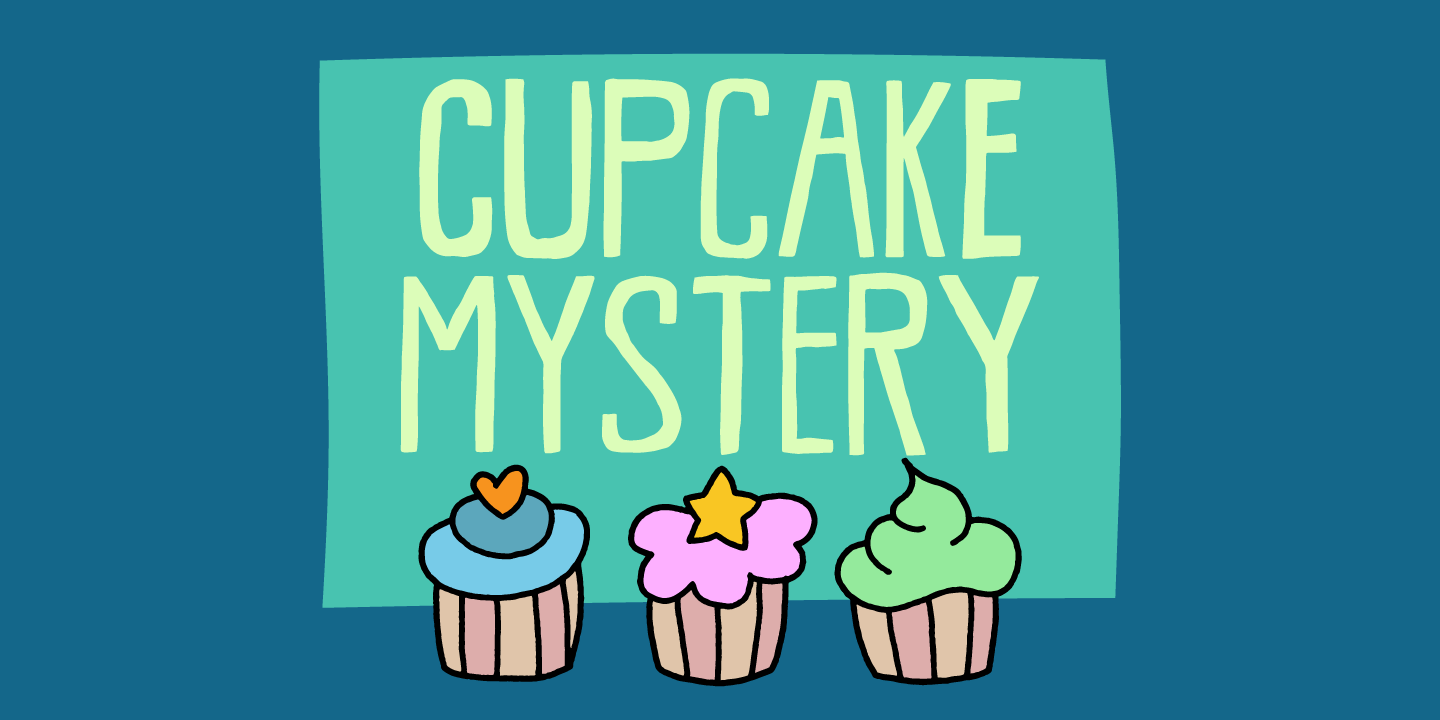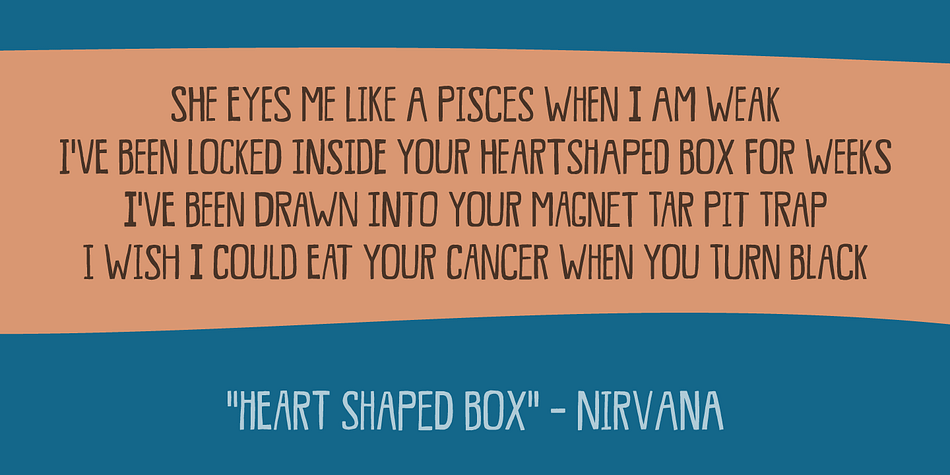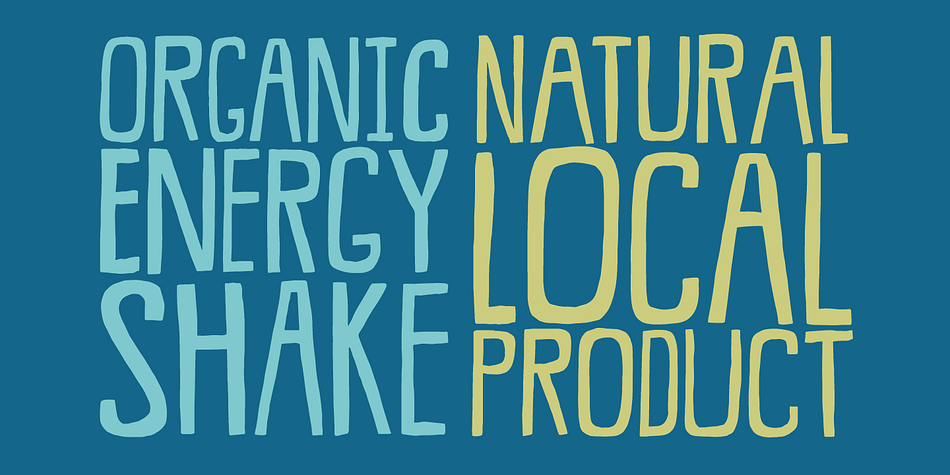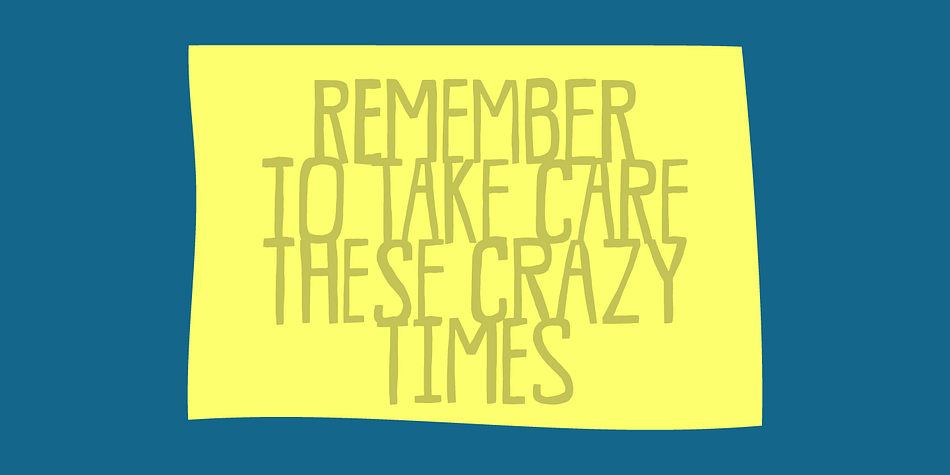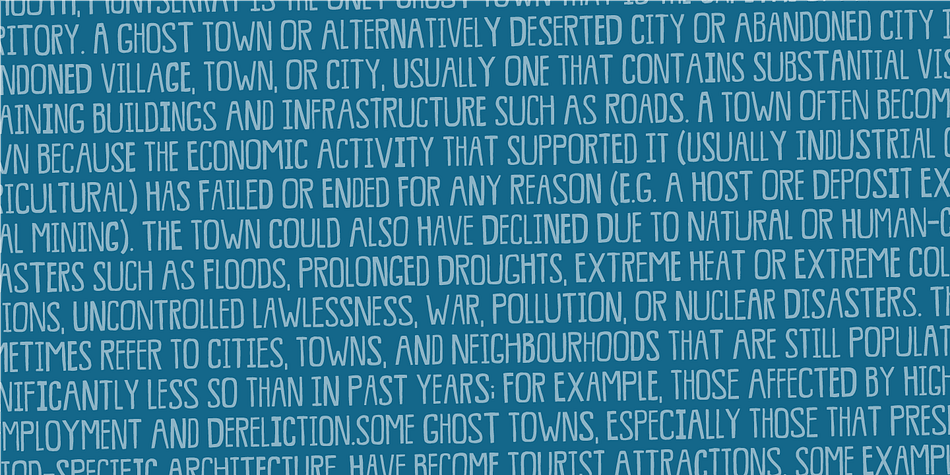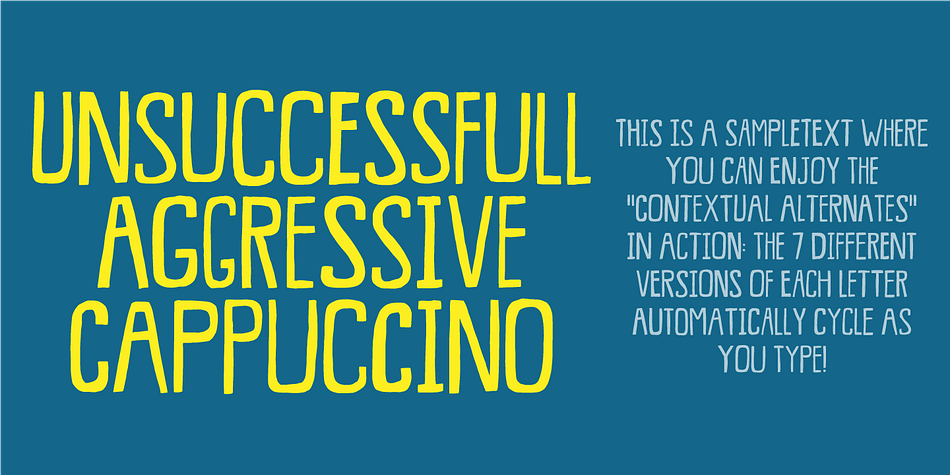
Designed by Jakob Fischer, Cupcake Mystery is a hand display and hand drawn font family. This typeface has two styles and was published by Bogstav.
Who took the last cupcake? It’s a mystery!